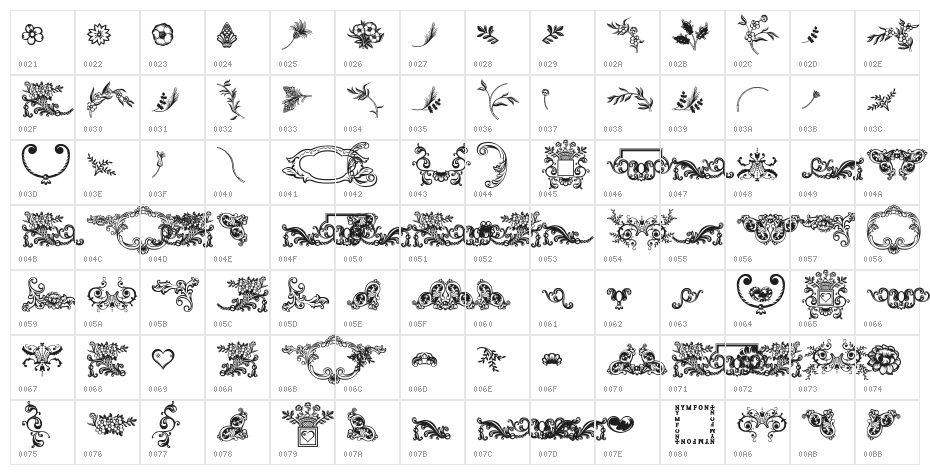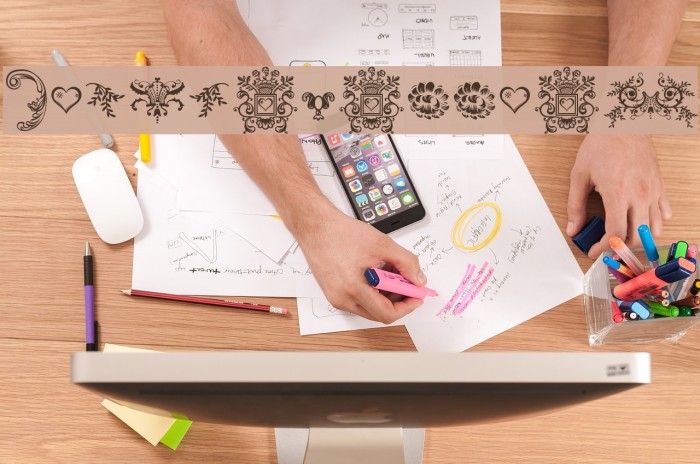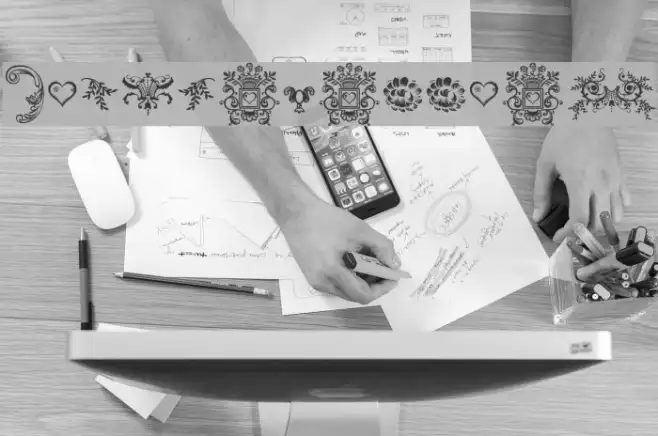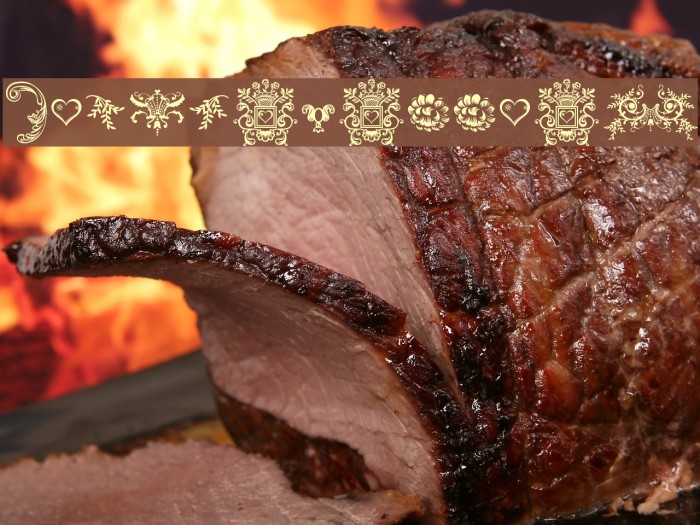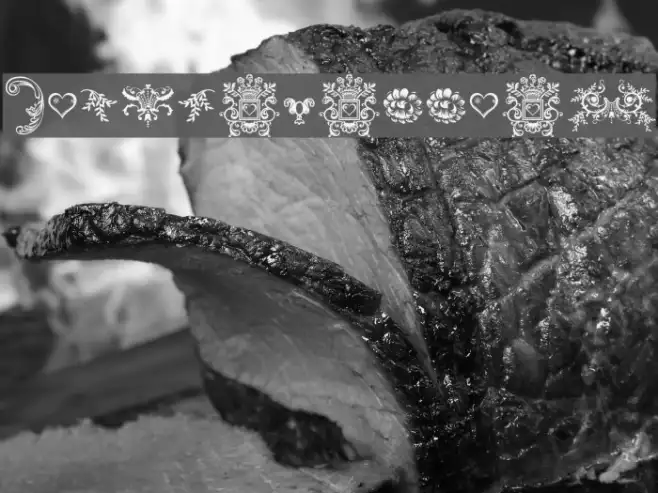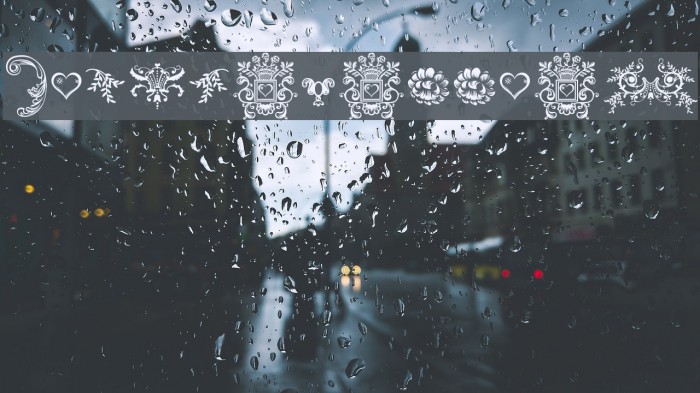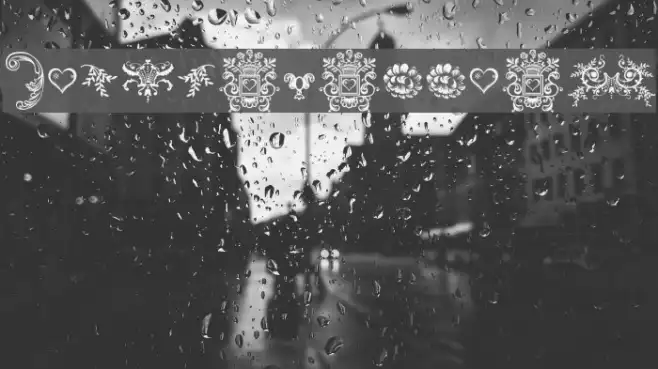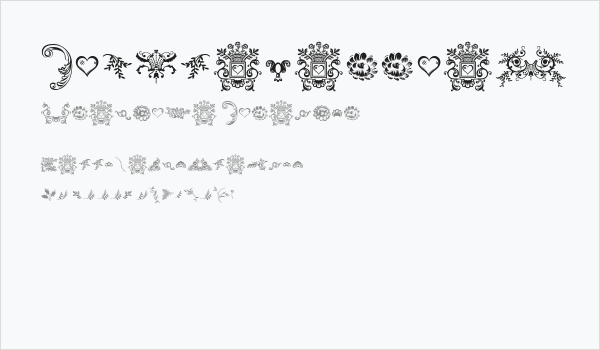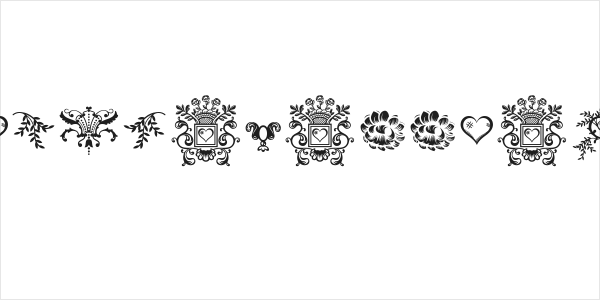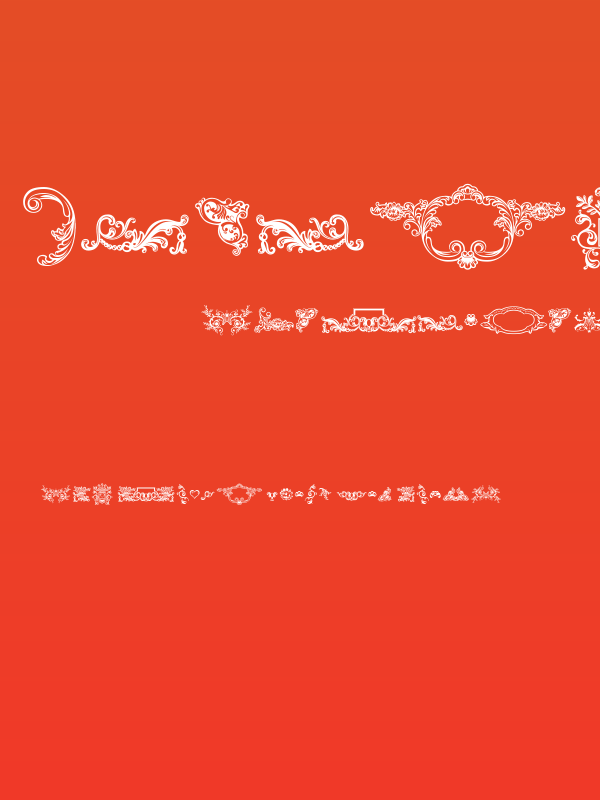
Dingleberries Font
A highly decorative collection of ornate floral and vintage embellishments, featuring intricate swirls, botanical motifs, and classic flourishes. The glyphs are detailed and varied, suitable for ornamental purposes rather than standard text.
| Overall Style | Vintage, Decorative |
| Use Case | Ornaments, Borders, Accents, Decorative elements |
| Proposed Projects | Wedding invitations, certificates, vintage packaging, decorative borders, scrapbooking, greeting cards. |